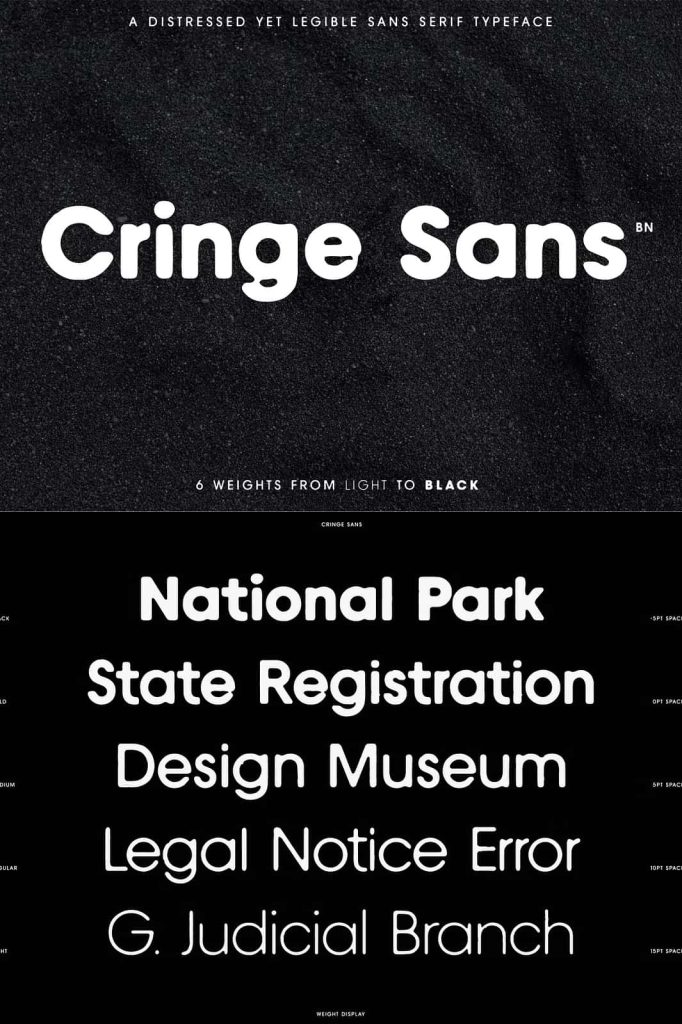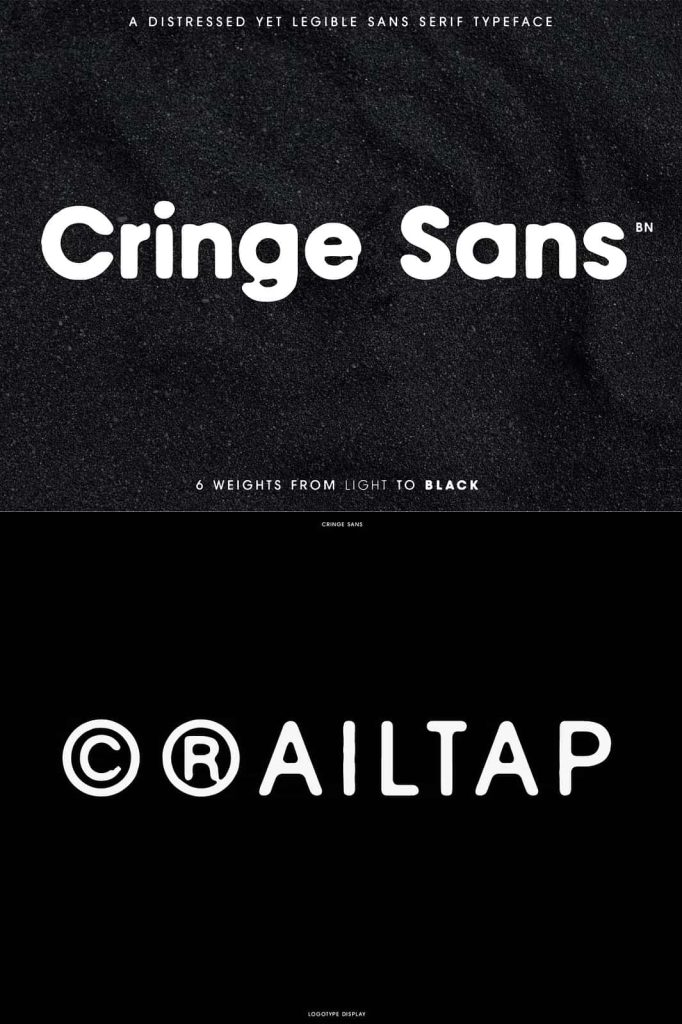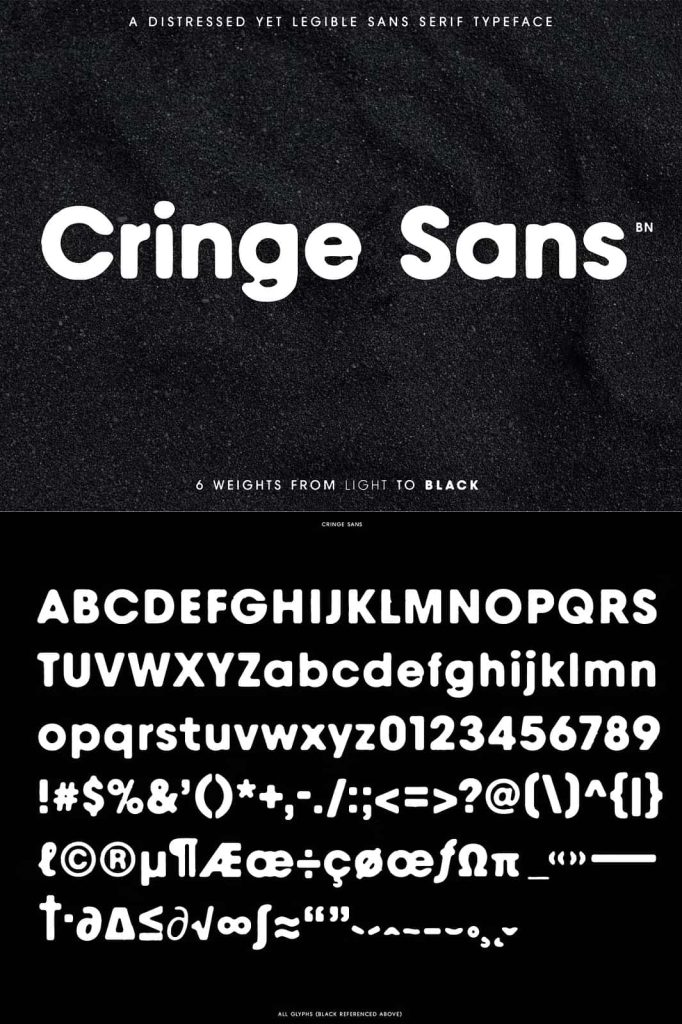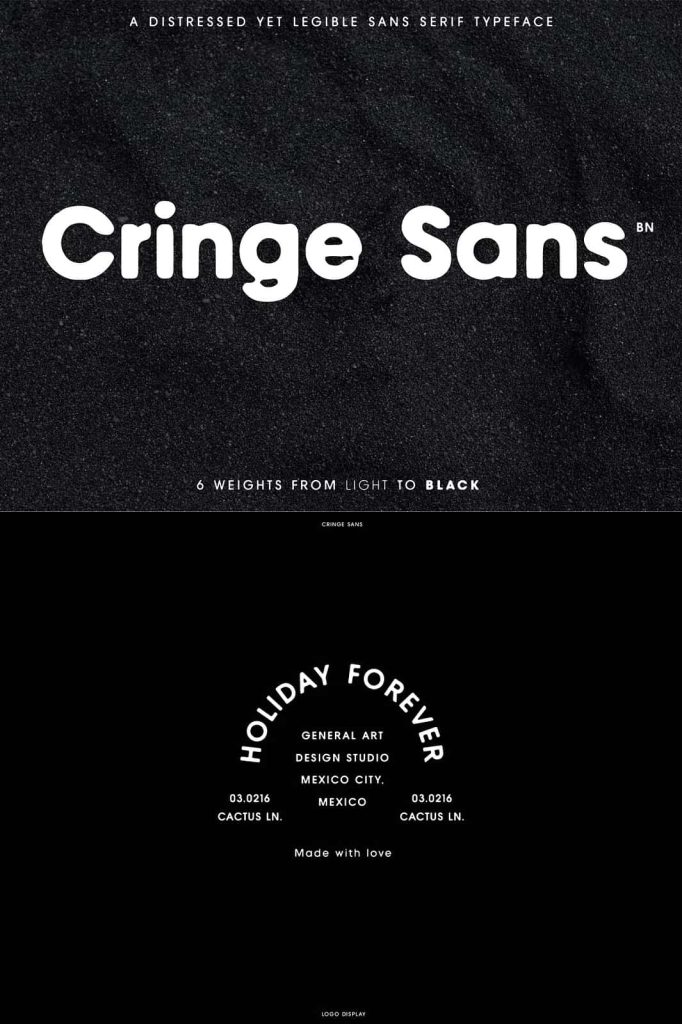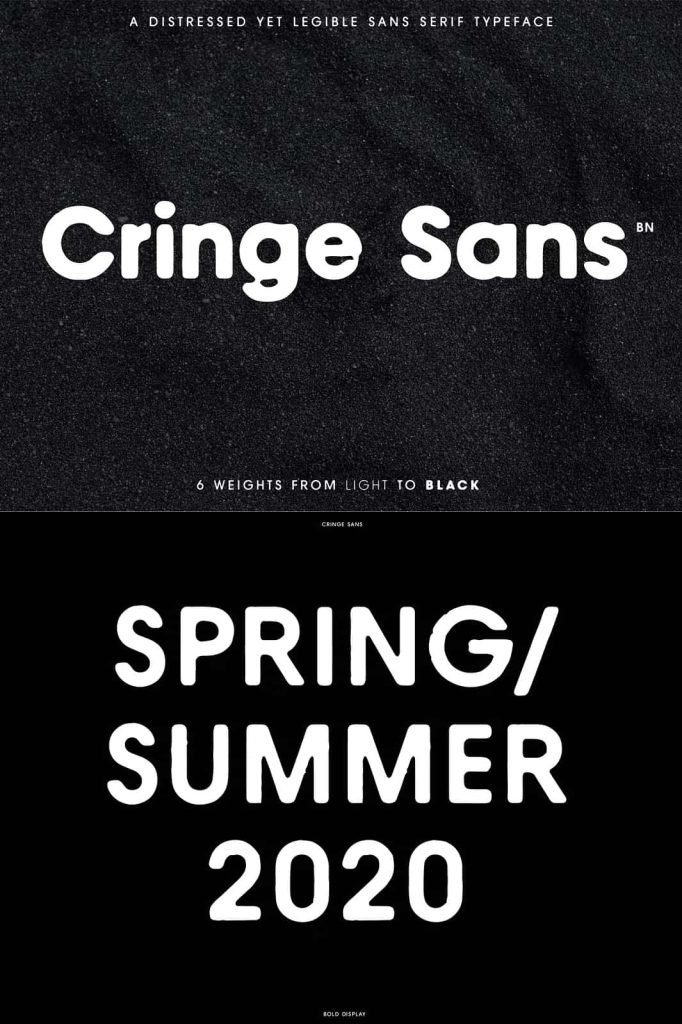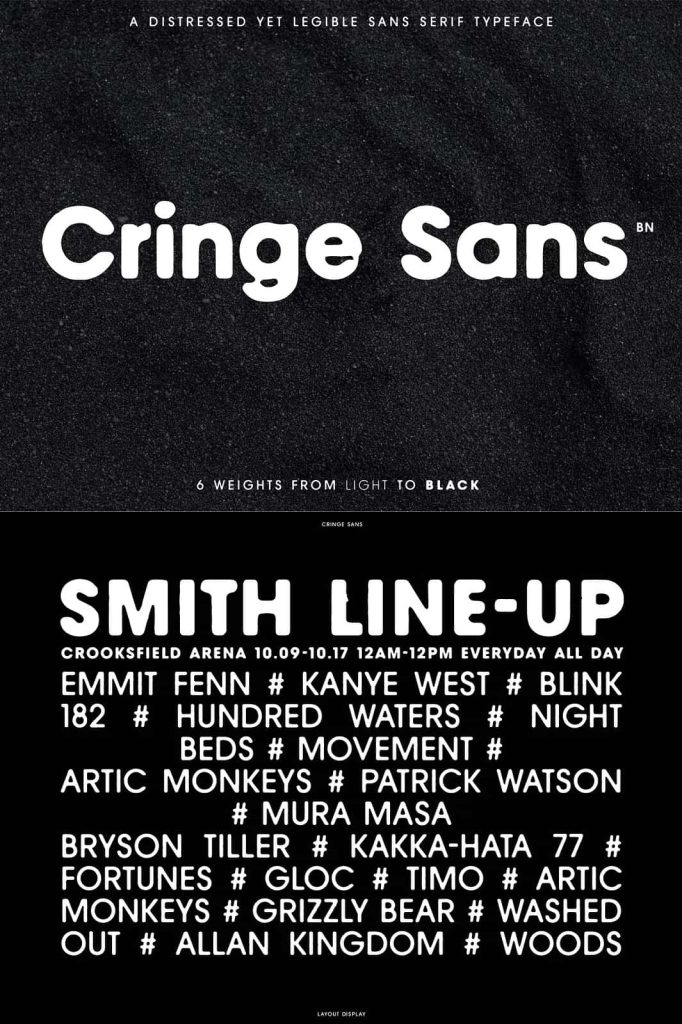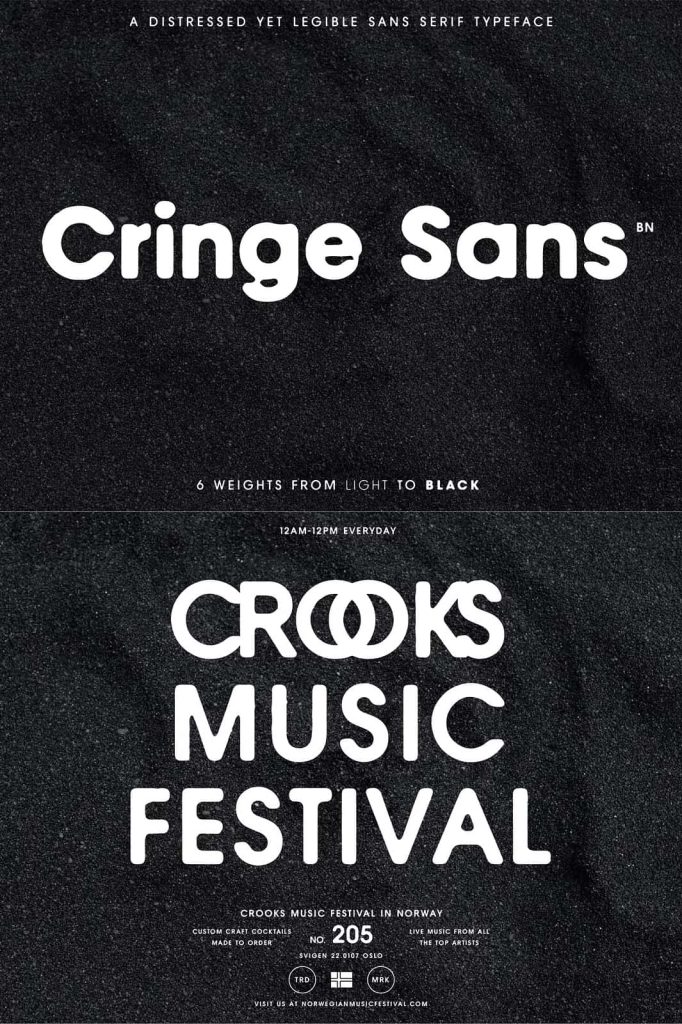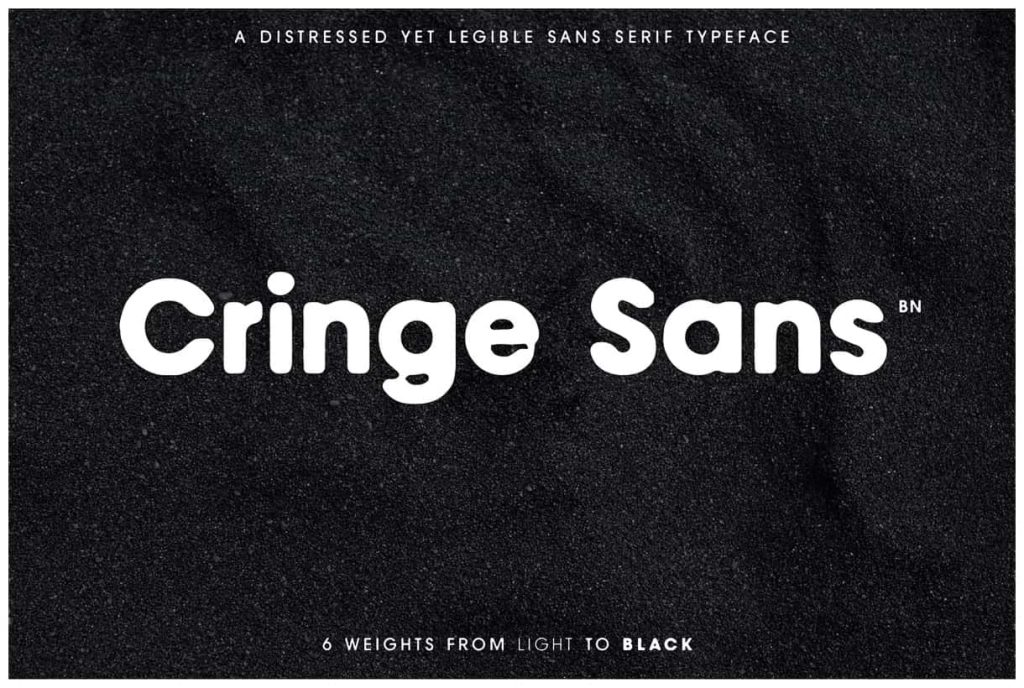
Cringe Sans – A Distressed TypefaceleastedJune 6, 2025Fonts A distressed typeface design for legibility and to give your brand/design a unique look and feel! Download